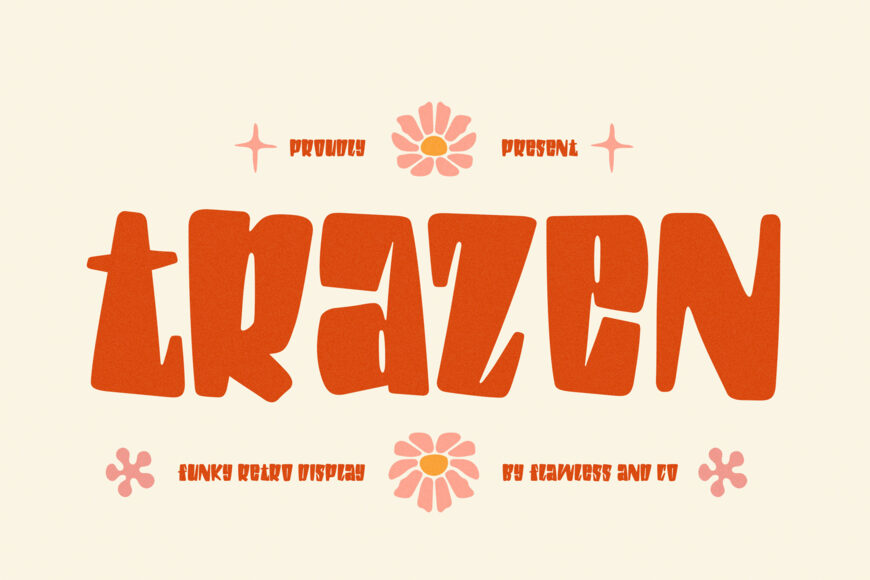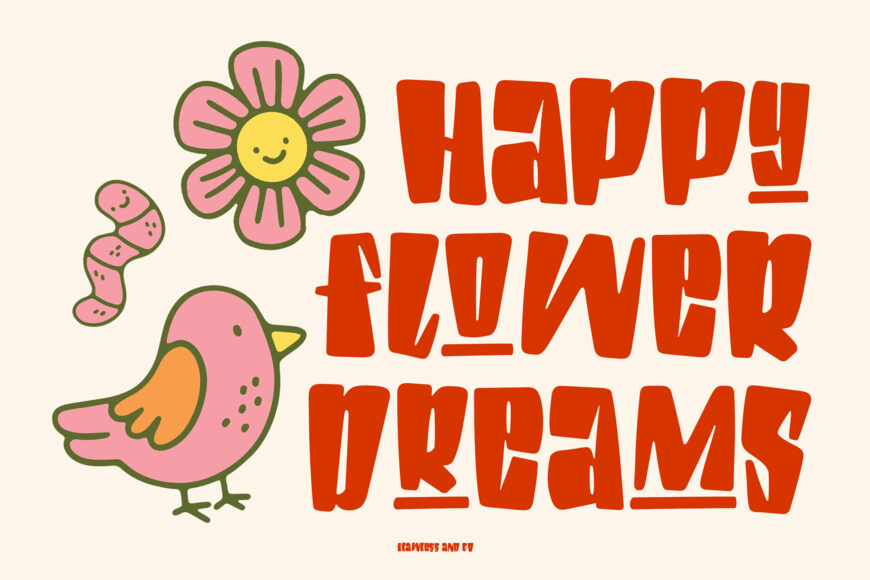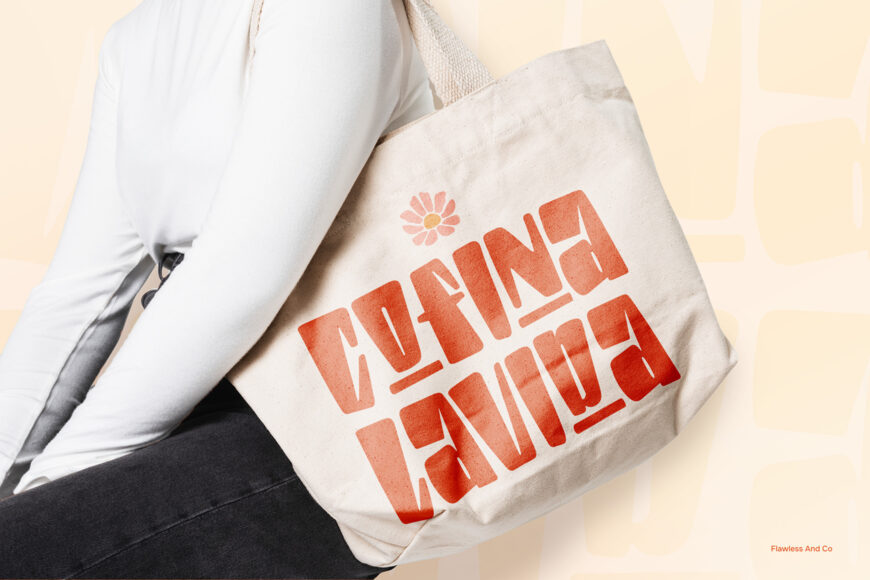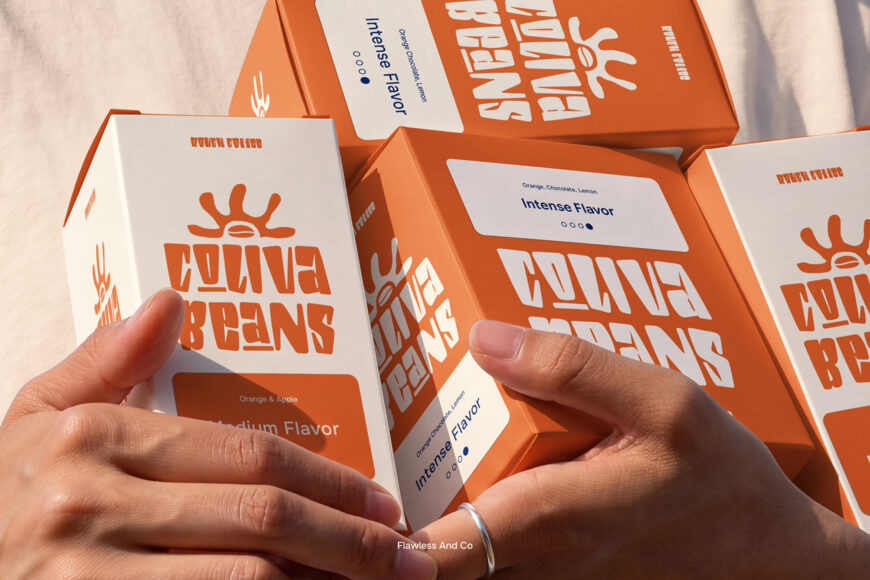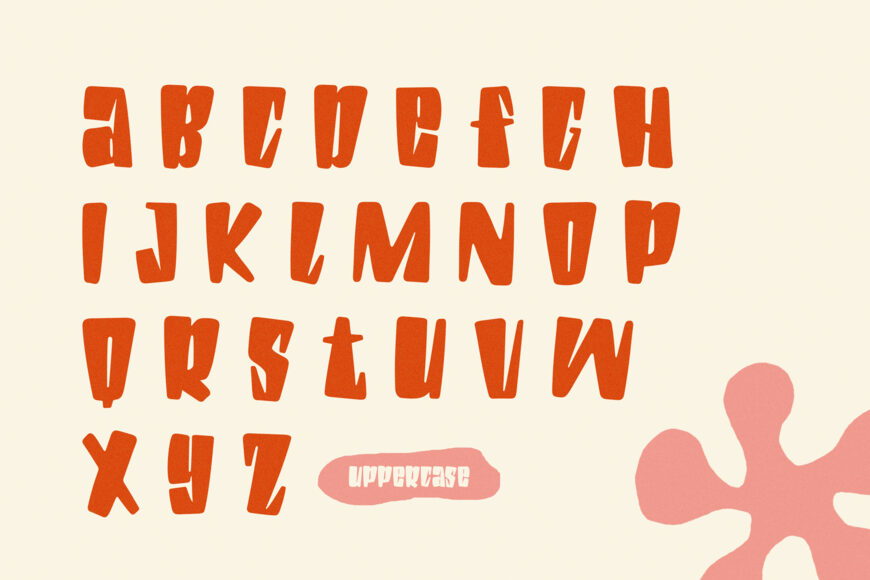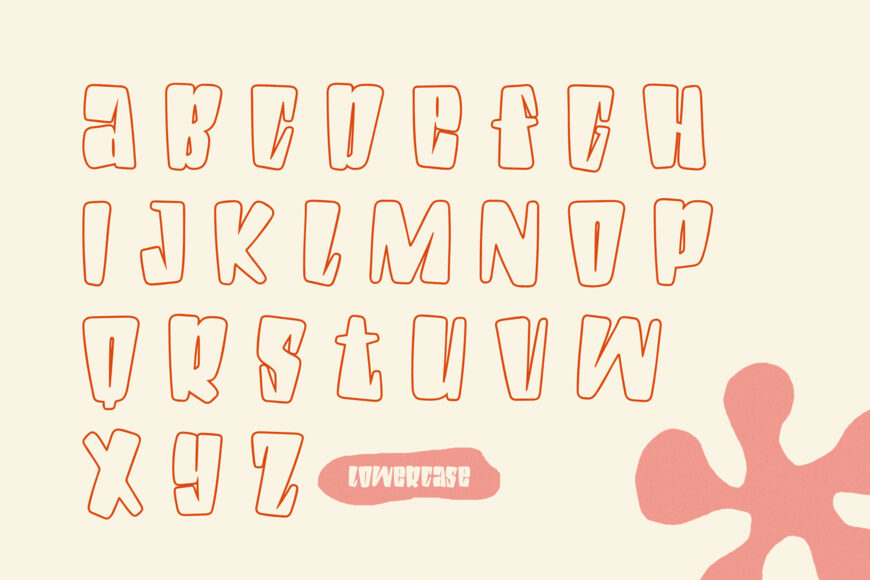
Trazen is a unique funky retro display typeface that brings together playful shapes, bold character, and nostalgic vintage energy. Its distinctive letterforms create a fun and expressive look that instantly grabs attention, making it perfect for designs that need a strong personality and a memorable visual presence. With its quirky retro style and eye-catching display forms, Trazen adds a creative twist to both modern and vintage-inspired projects.